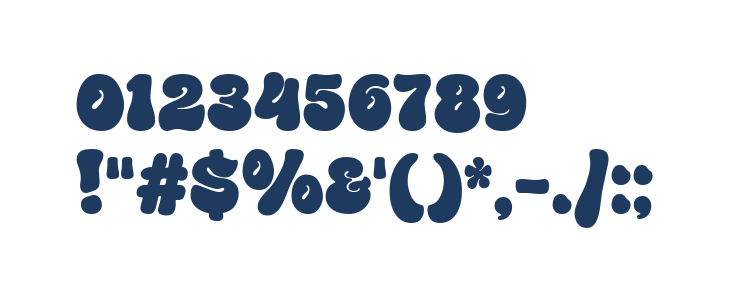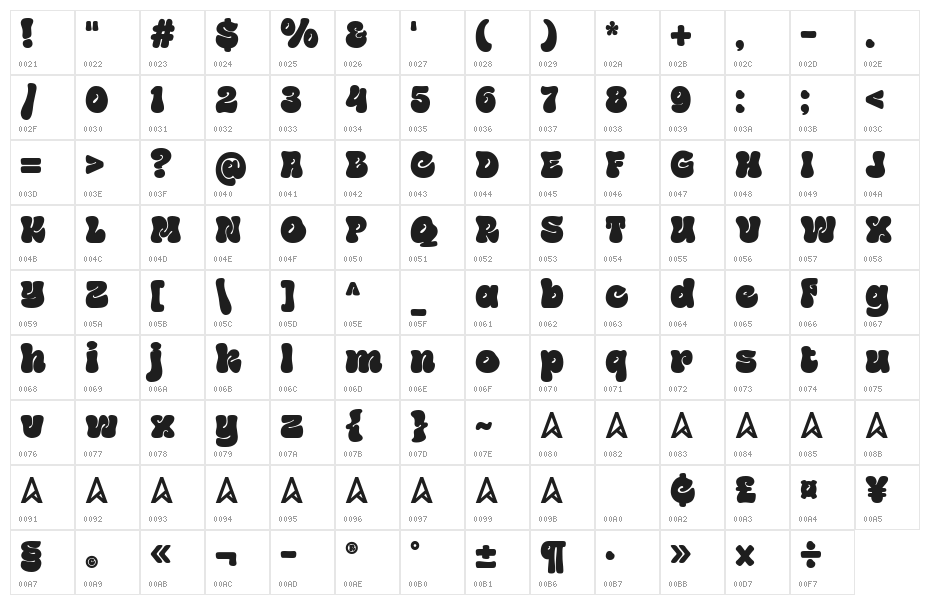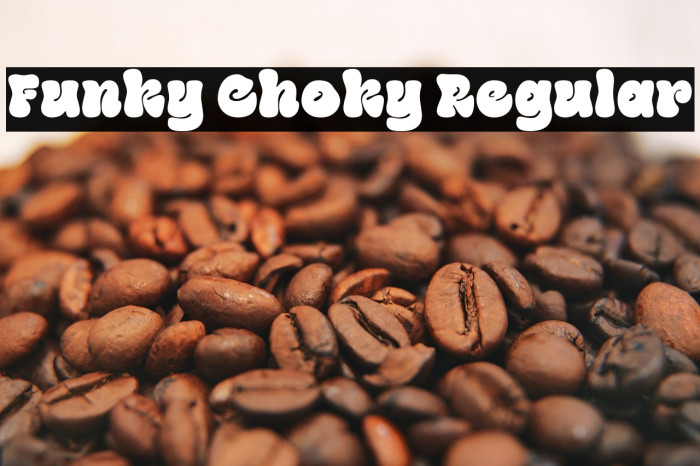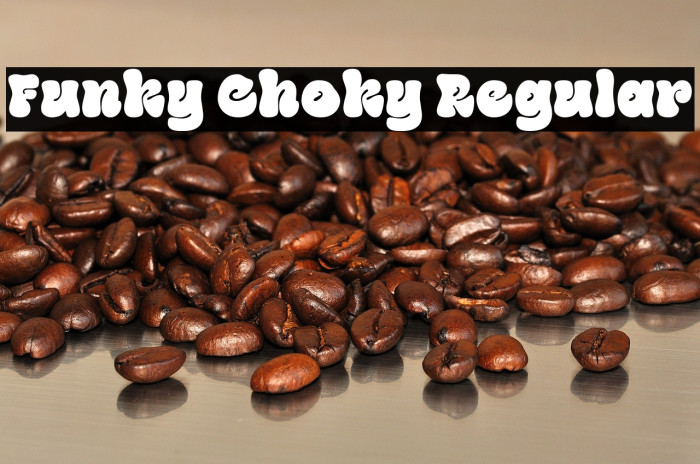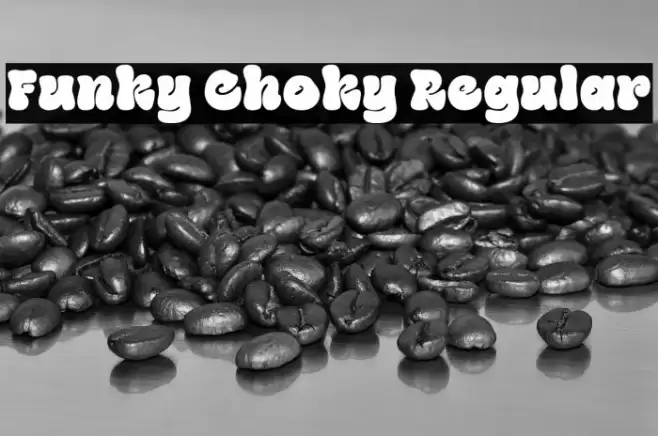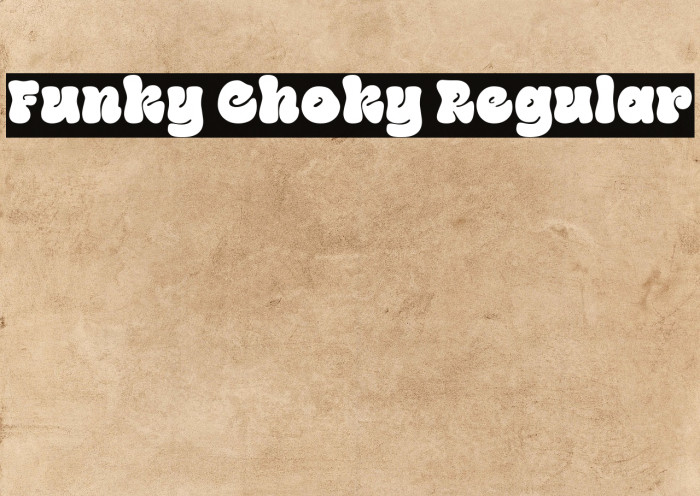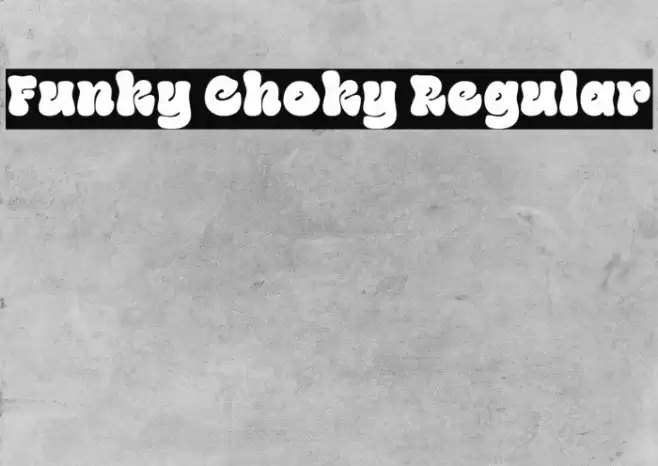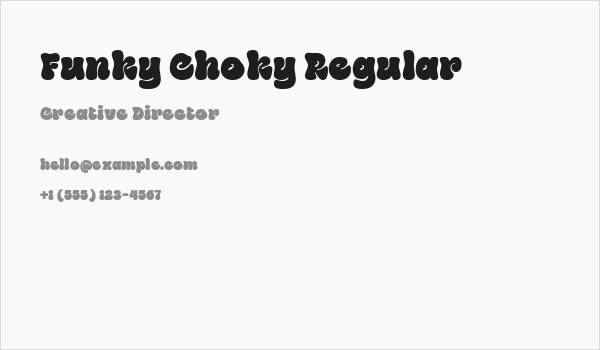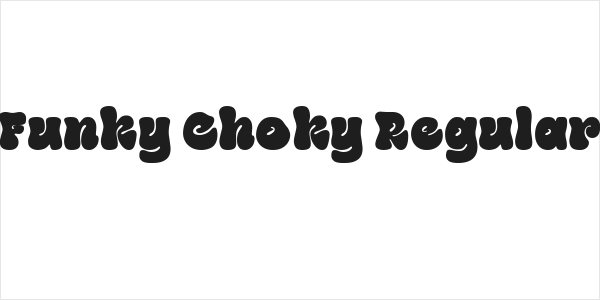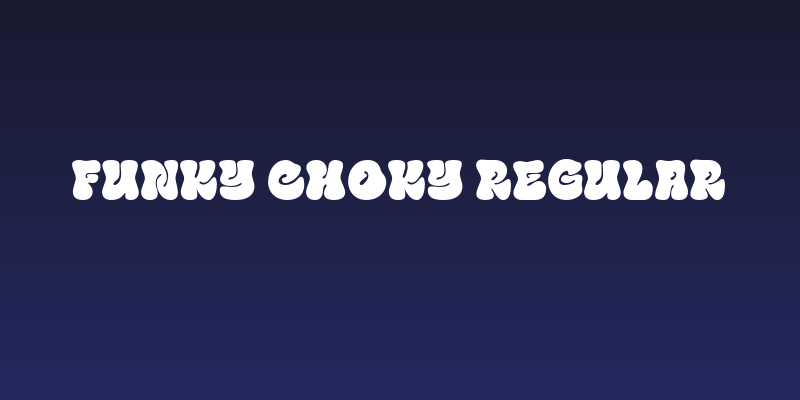
Funky Choky Regular Font
Funky Choky Regular Description
This font features a bold and playful design with thick, rounded characters that exude a sense of fun and creativity. The letters are heavily stylized with a bubbly appearance, making them stand out with a unique charm. The uppercase and lowercase letters maintain a consistent style, while the numbers and special characters complement the overall look. The font's exaggerated curves and soft edges give it a friendly and approachable feel, perfect for projects that require a touch of whimsy and boldness.
| Overall Style | Playful, Fun, Whimsical |